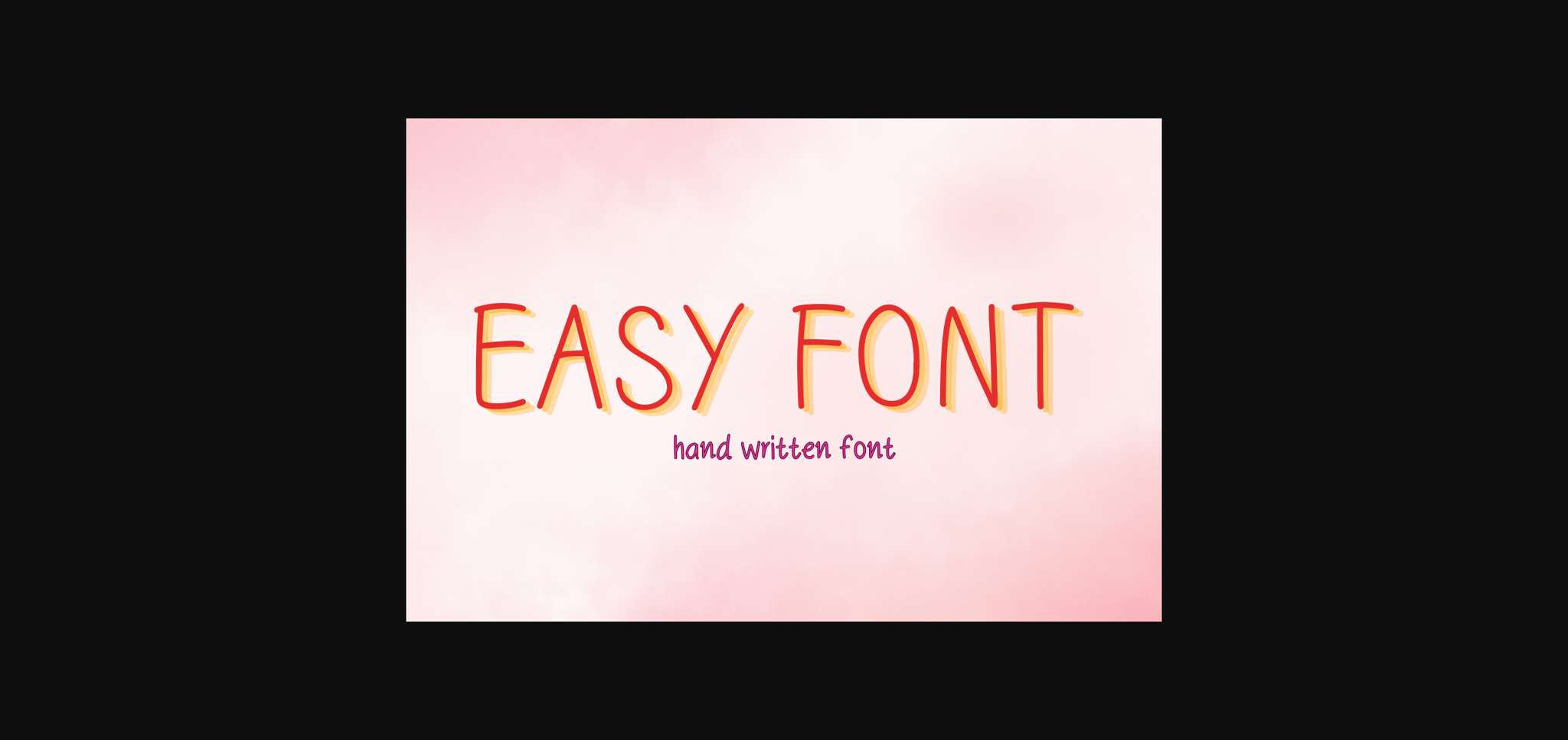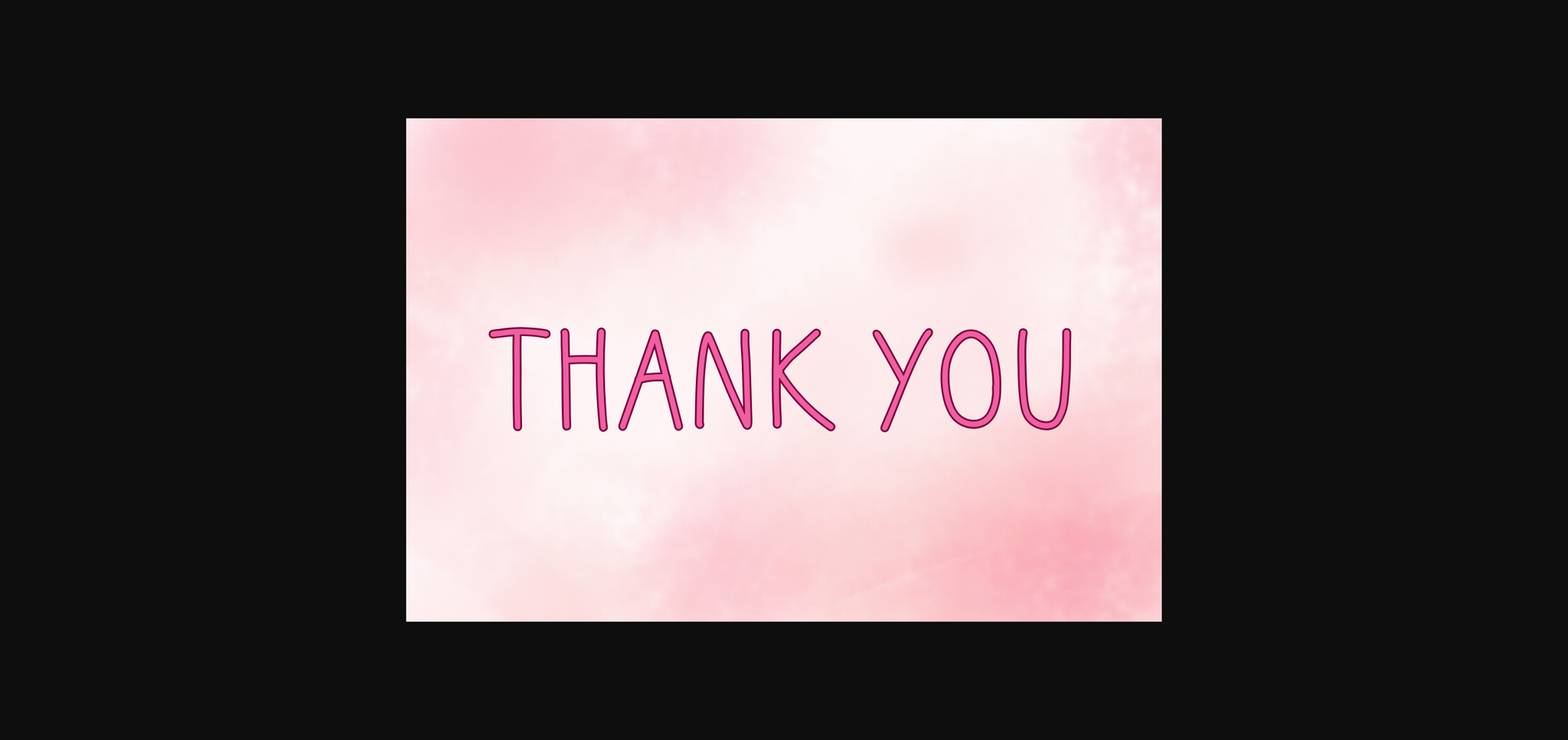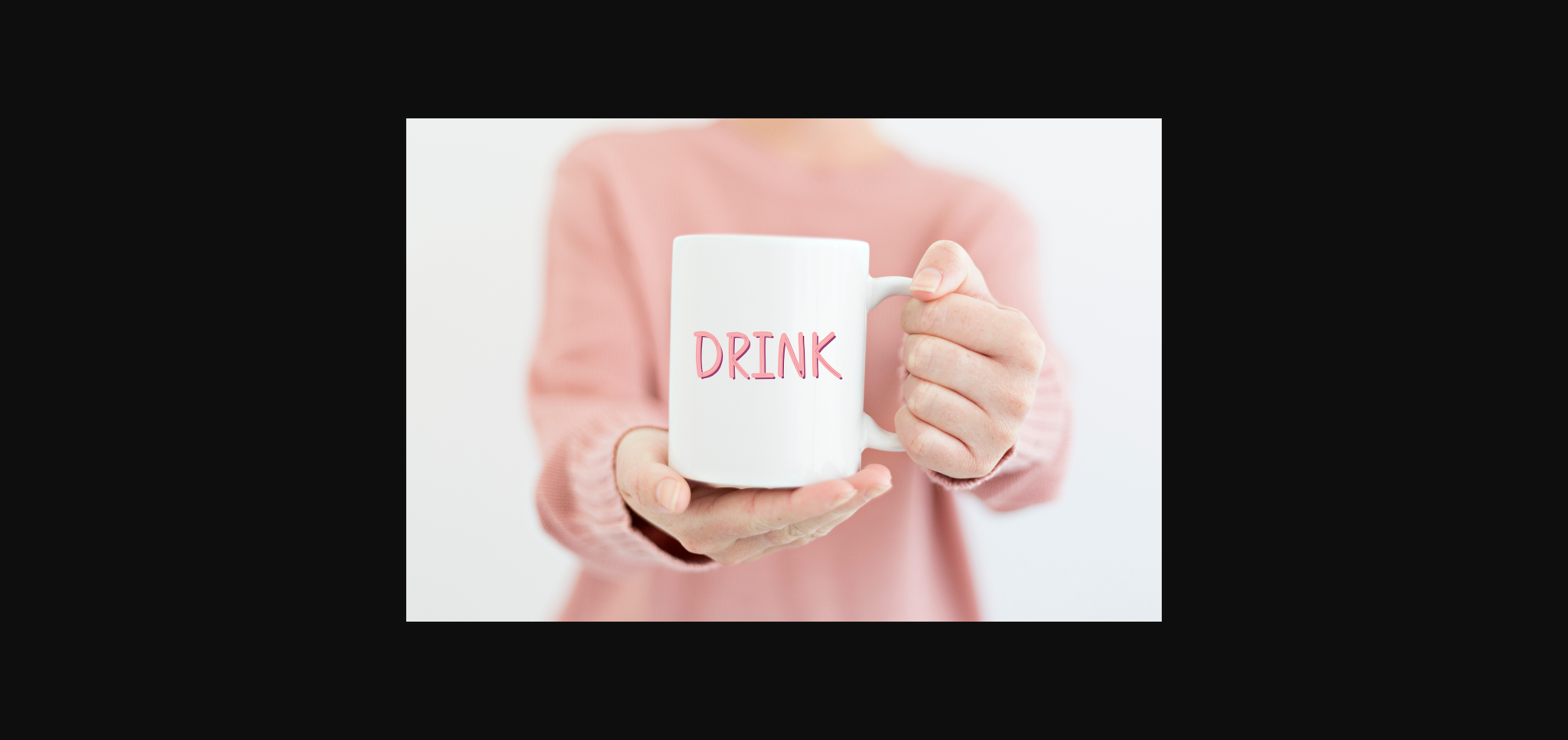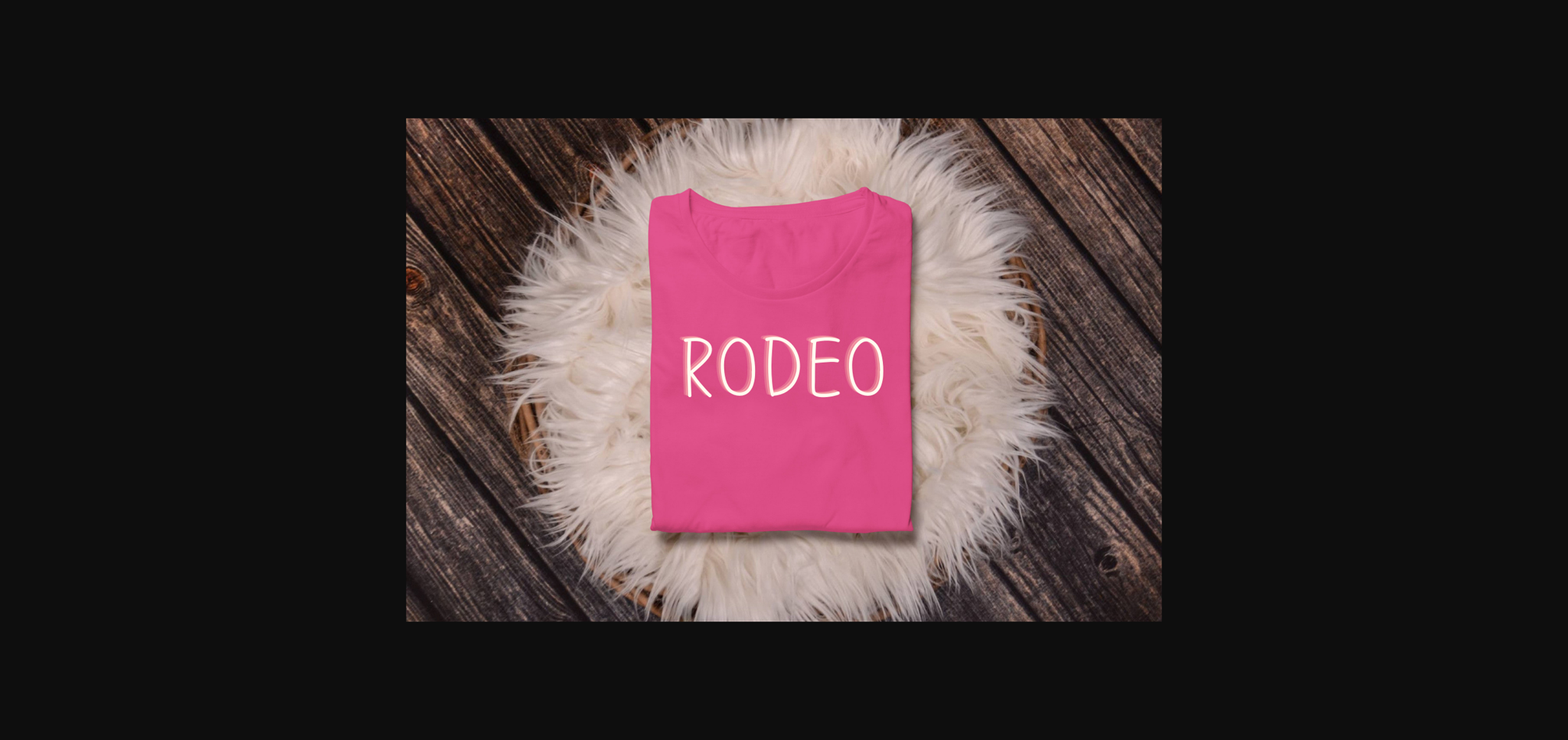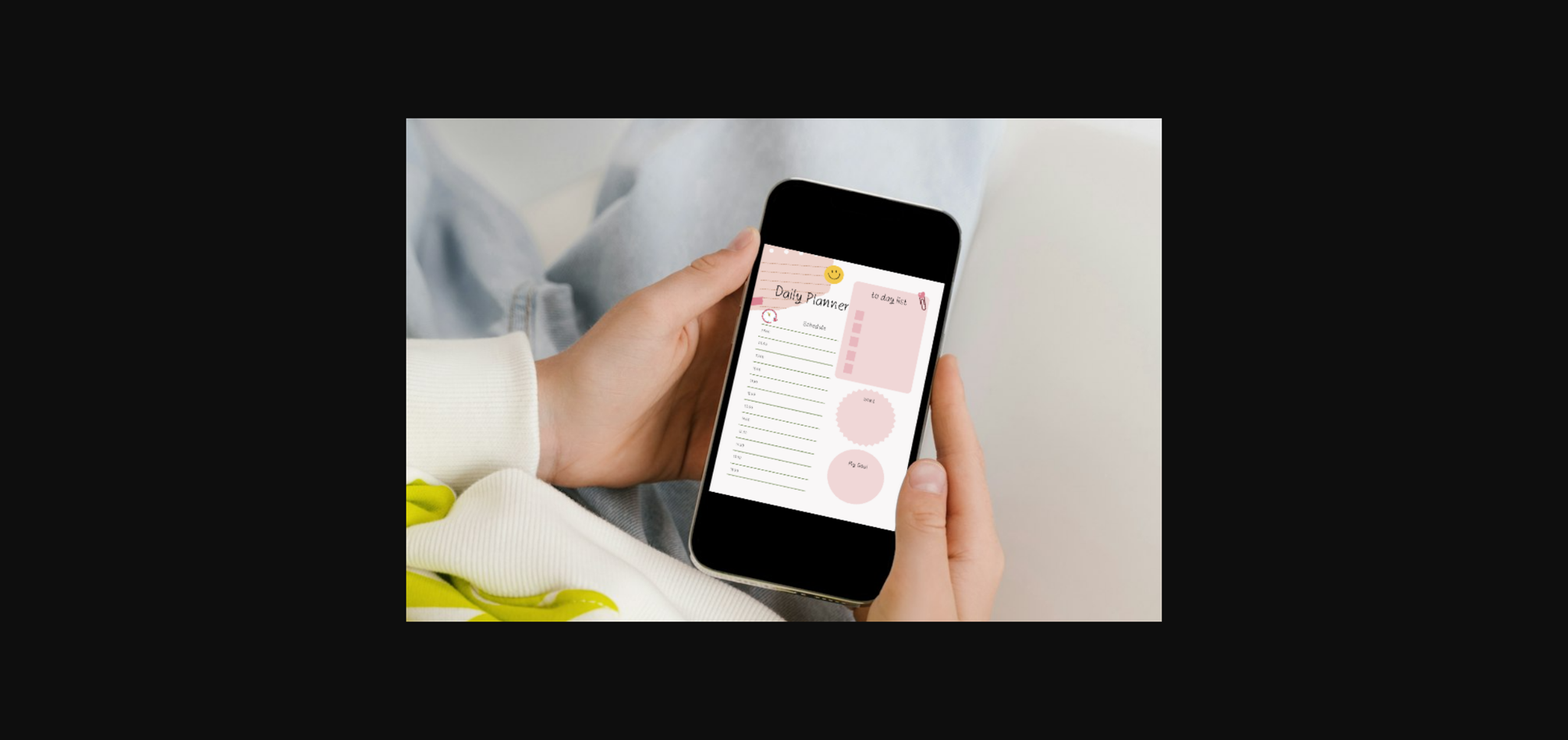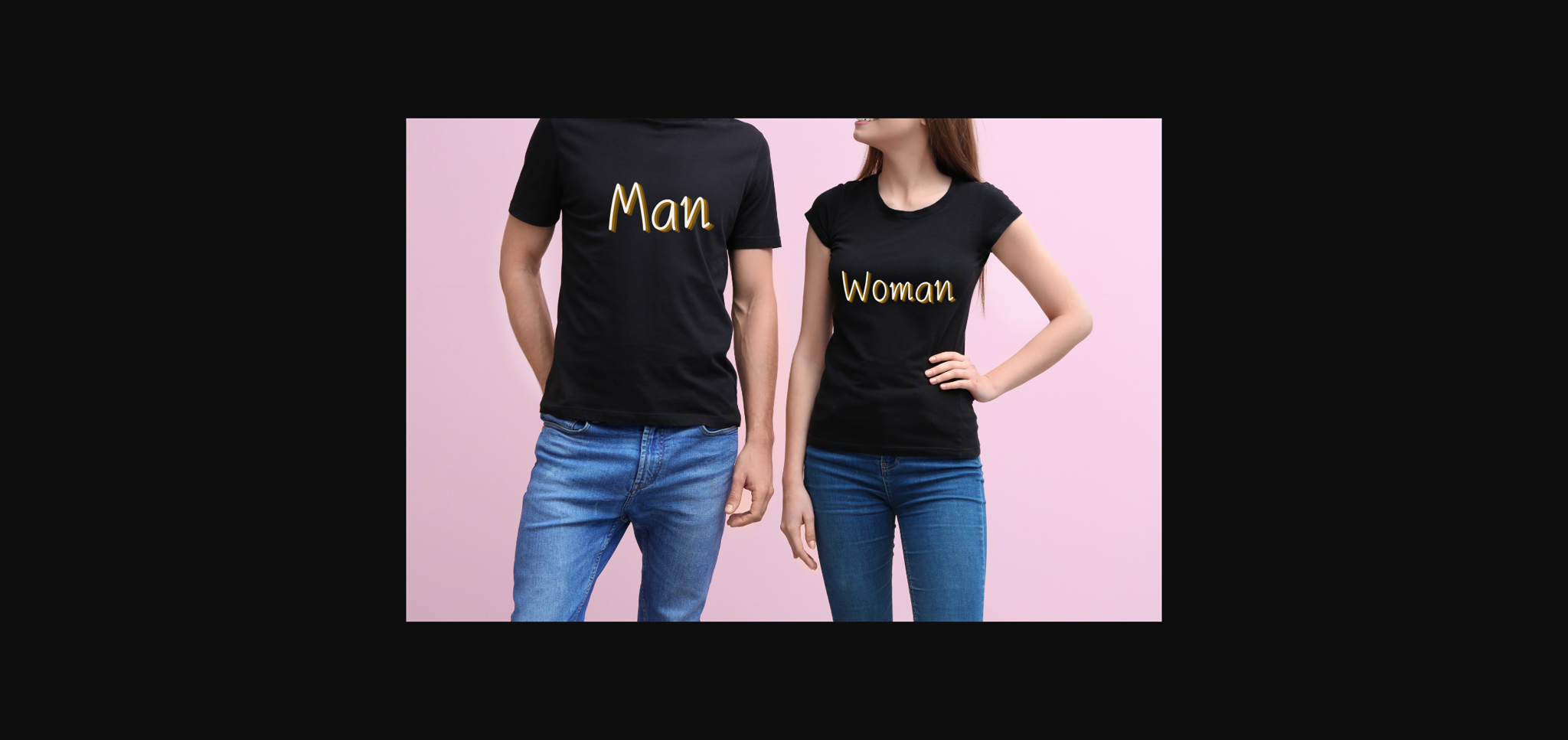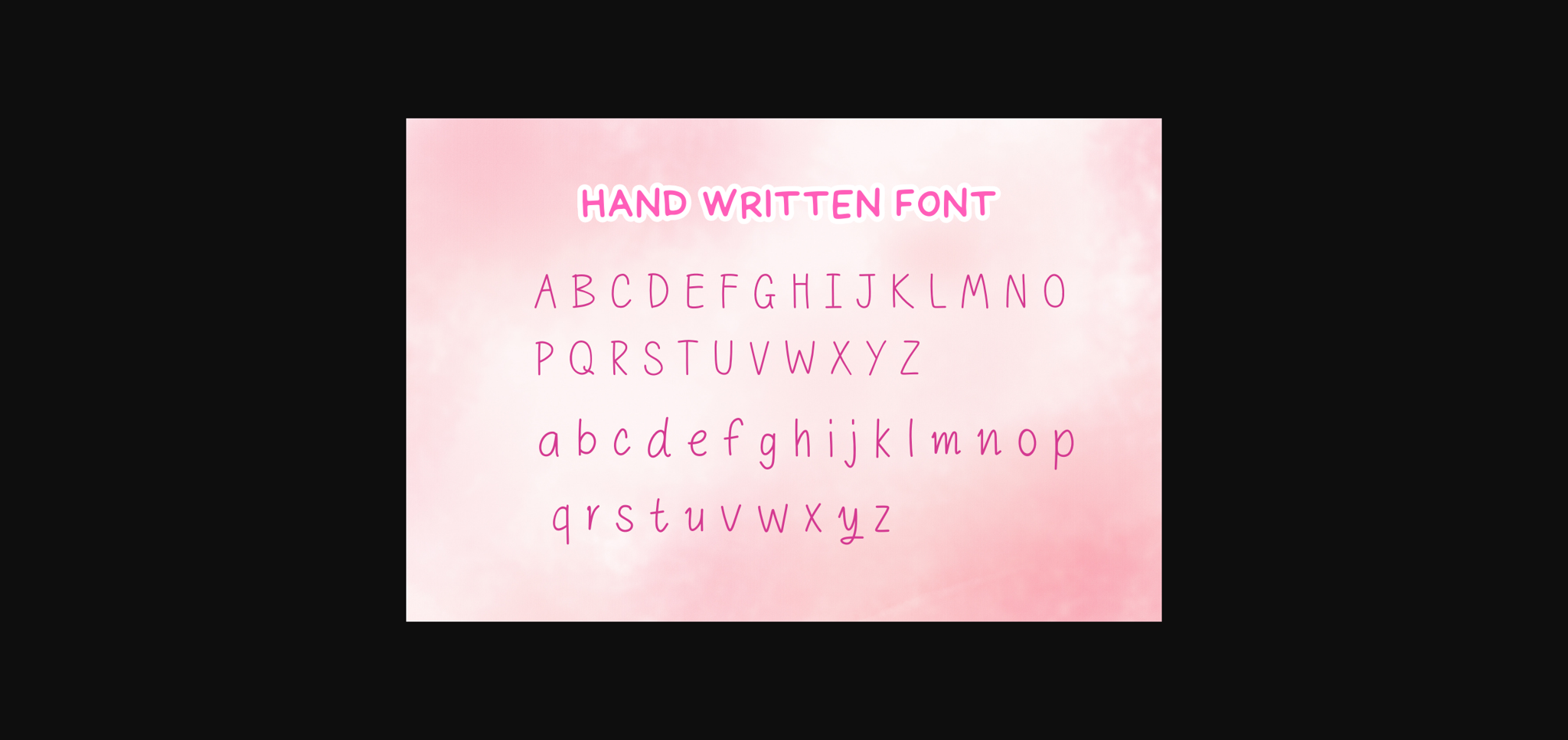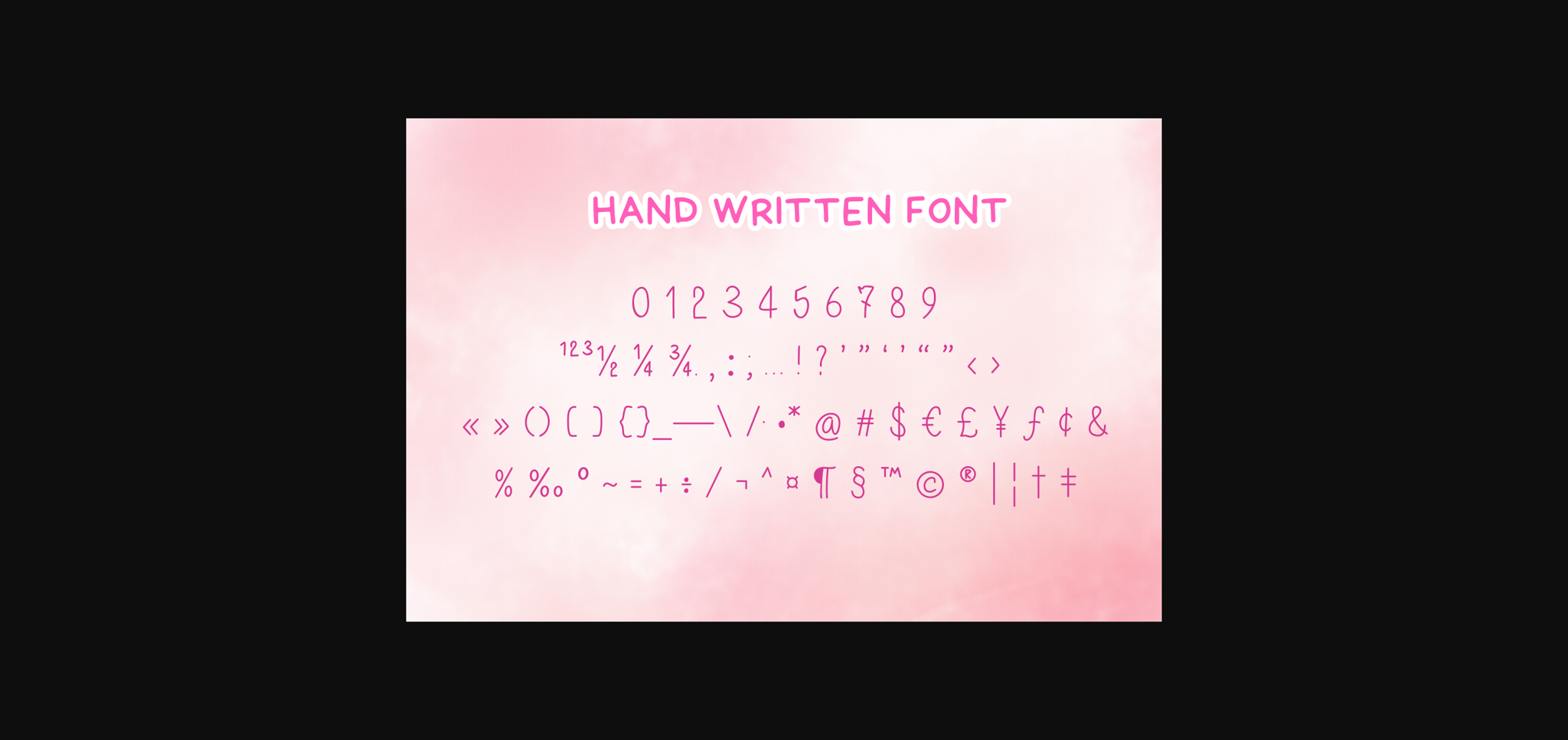
Easy Font
About Easy Font
Easy Font it is designed in a fun and friendly handwritten sans serif font. It would be great for any fun projects or your diary planner. Come try it on your perfect project like Easter, back to school, wedding, party decorations, invitations, fall, Halloween, Christmas, posters, blogs, clothing, kids-related designs, greeting cards, and social media posts. Media or whatever you want friendly touch Add it to your font library now. And it will bring your DIY projects to life.